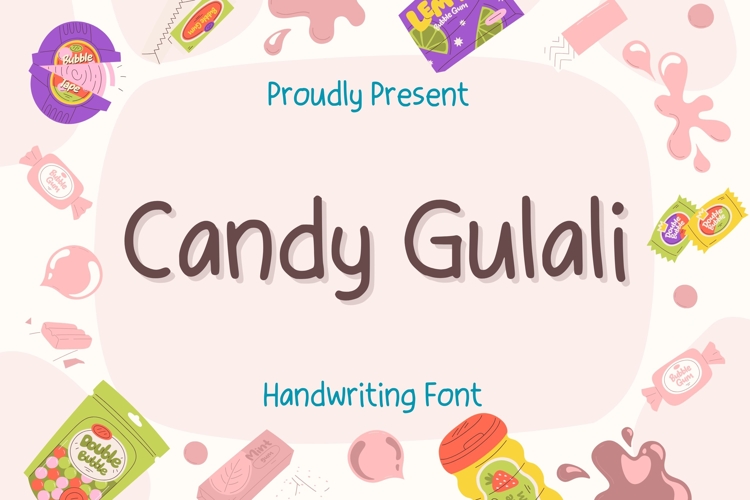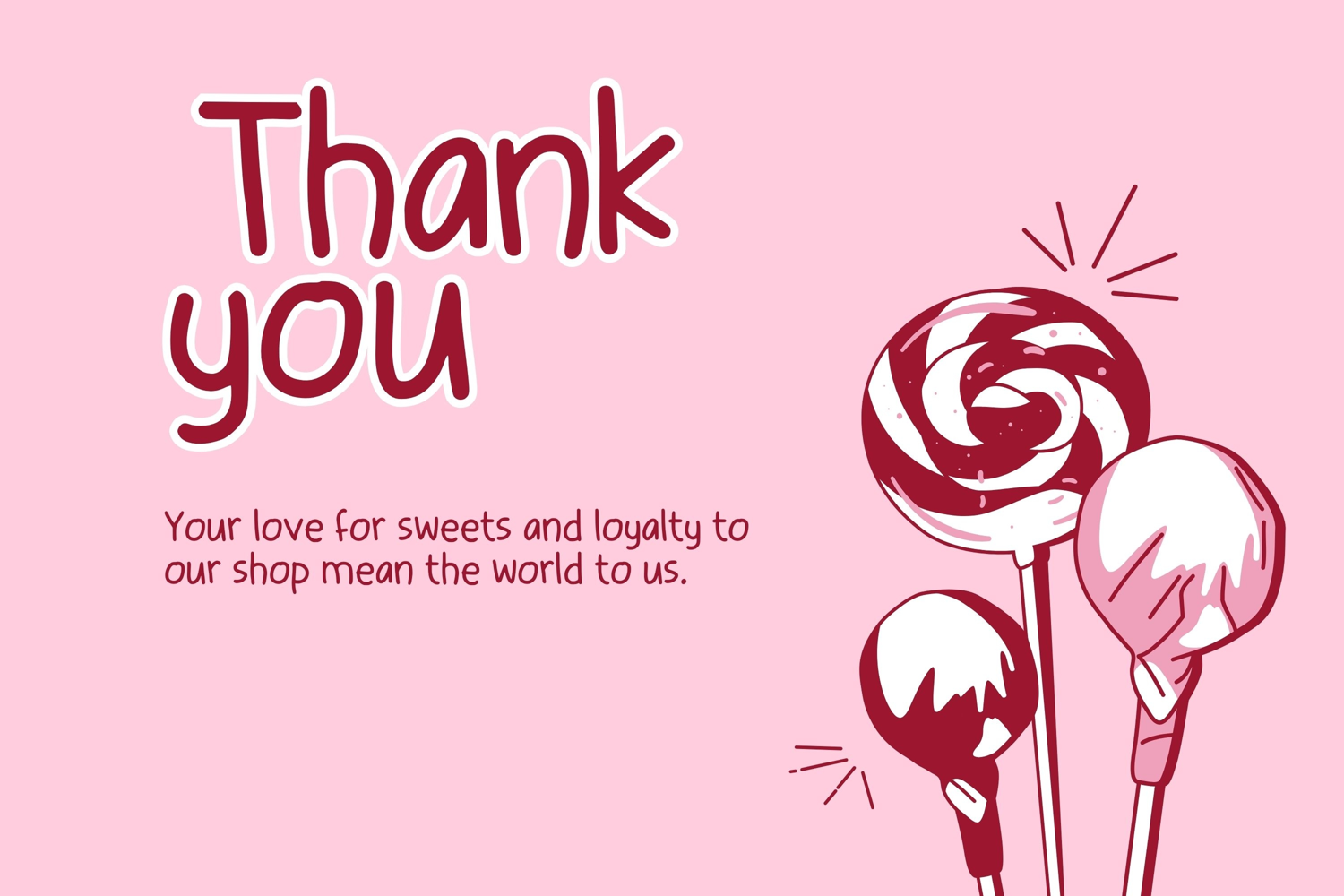
Immerse yourself in the irresistible charm of Candy Gulali. This adorably sweet and elegant font is perfect for lending a touch of simplistic sophistication to your design projects. Ideal for greeting cards and event invitations, Candy Gulali captures the essence of subtle elegance and child-like innocence, enhancing your creations with a delightful aesthetic. Transform your designs into delightful masterpieces with Candy Gulali, where elegance meets exuberance in every swoosh of the letter.